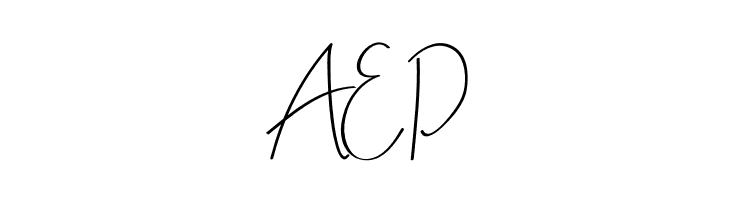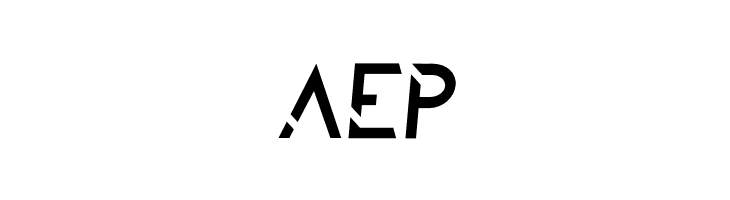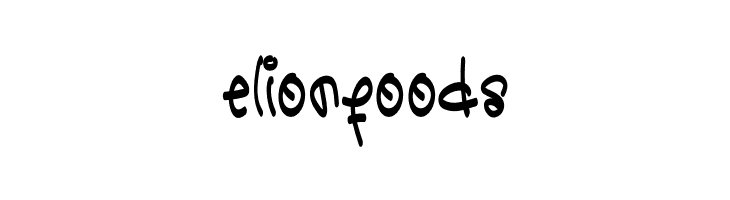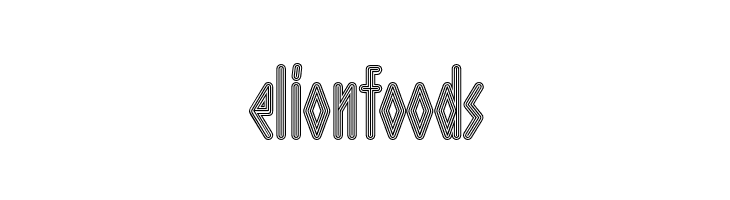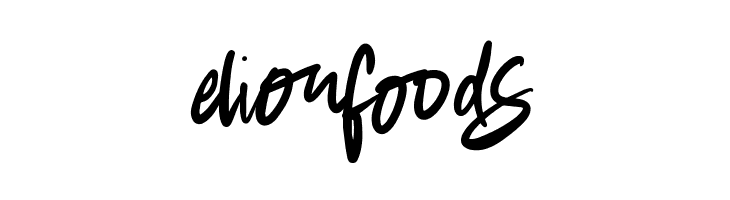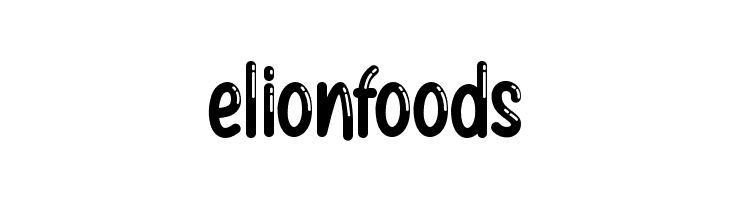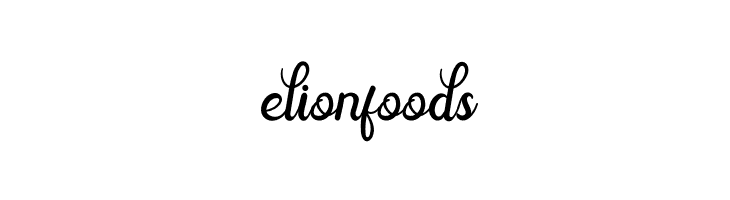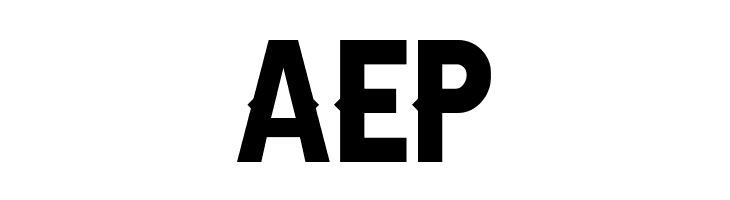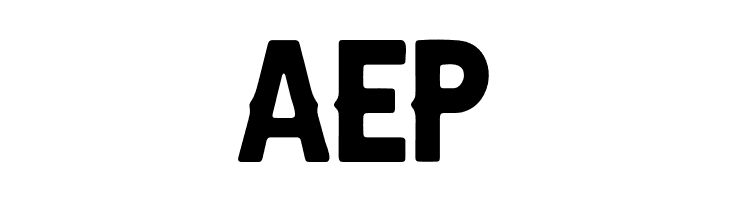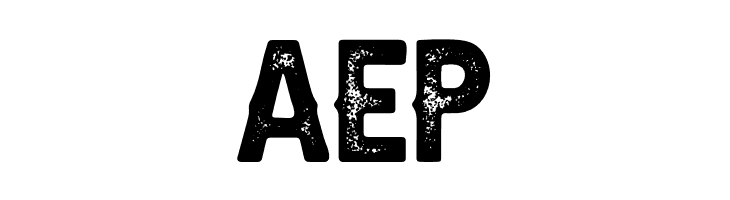
A playful and whimsical font with vintage theatrical flair.
A modern, rounded font with a clean, geometric style.
A bold, rounded, and playful handwritten font with a whimsical style.
A bold, handwritten font with a playful and dynamic style.
A bold, geometric font with tall, narrow uppercase letters and consistent lowercase forms.
A playful, rounded font with smooth curves and a whimsical style.
A playful, bold font with rounded edges and a whimsical style.
A playful, rounded font with a light and airy feel, perfect for adding personality.
A playful, handwritten-style font with a casual, italicized appearance.
A playful, rounded font with smooth curves and a friendly appearance.
A playful, narrow font with rounded, whimsical letterforms.
A graceful, cursive font with elegant, flowing lines and calligraphic style.
A dynamic, handwritten script font with bold, fluid strokes.
A bold, three-dimensional font with strong outlines and shadow effects.
A flowing, cursive font with elegant loops and smooth transitions.
A playful and elegant script font with smooth, flowing lines.
A playful, handwritten font with bold, rounded characters and a whimsical style.
A playful and whimsical font with bold, curvy elements and a lively appearance.
A playful, slanted font with outlined, layered characters and a modern geometric style.
A decorative, geometric font with outlined characters and a modern aesthetic.
A playful, slanted, outlined font with a dynamic and bold appearance.
A decorative, geometric font with a three-dimensional line effect.
A playful, slanted, and layered font with a dynamic, three-dimensional appearance.
A decorative, multi-layered outlined font with a geometric and modern style.
A playful, balloon-like font with rounded, bold characters.
A playful, balloon-like font with rounded, bubbly letters.
A playful, segmented font with a whimsical, airy design.
A playful and whimsical font with curly, decorative letterforms.
A playful, hand-drawn font with a bold and whimsical style.
A playful, hand-drawn font with a brush-like texture and lively appearance.
A bold, playful font with rounded, bubbly characters ideal for fun and whimsical designs.
A bold, handwritten font with a lively and energetic style.
A bold, expressive handwritten font with dynamic strokes and a lively aesthetic.
A playful, hand-drawn font with tall, narrow characters and a modern feel.
A playful, handwritten font with bold, expressive strokes.